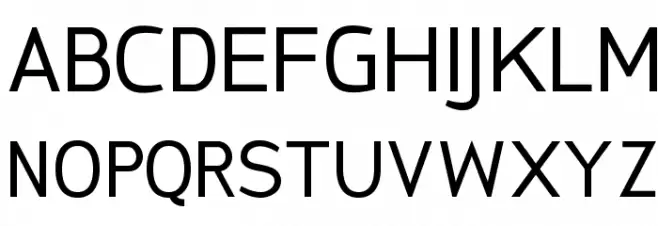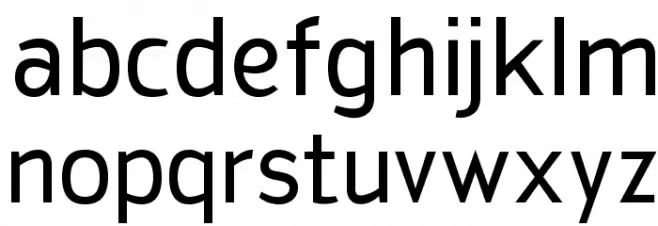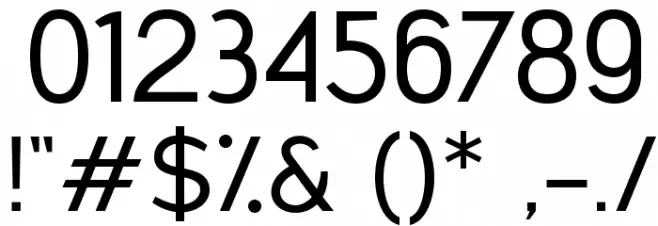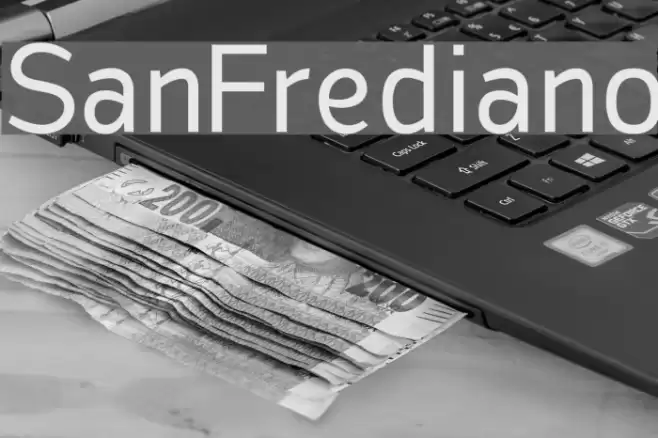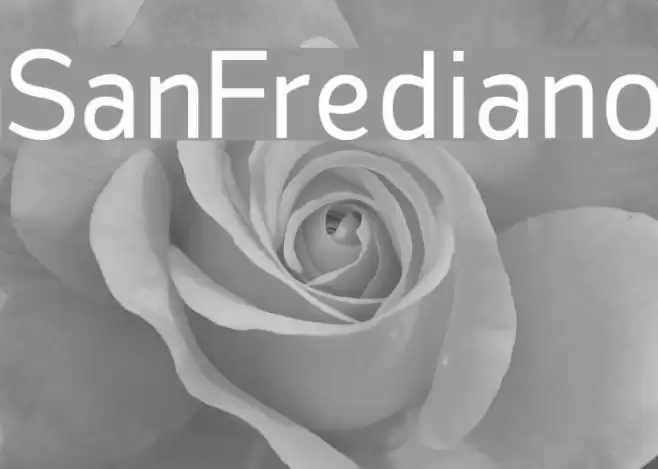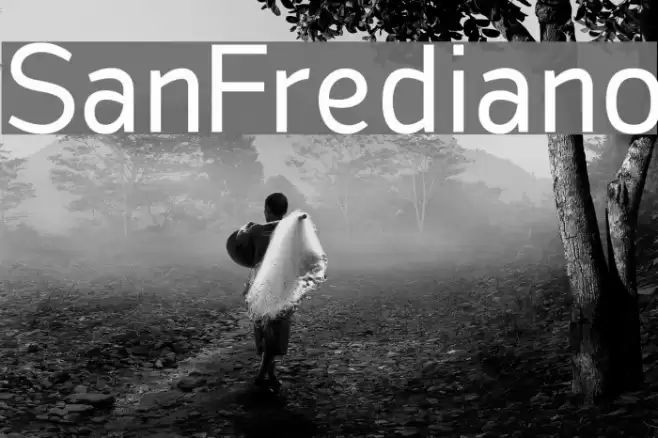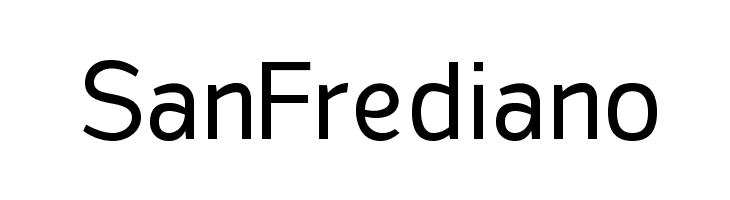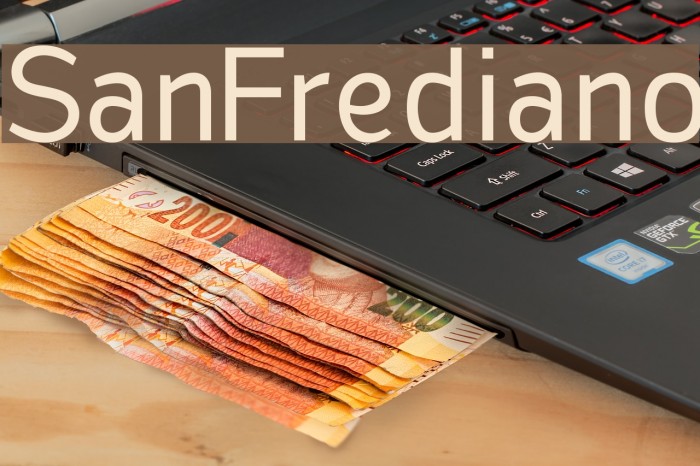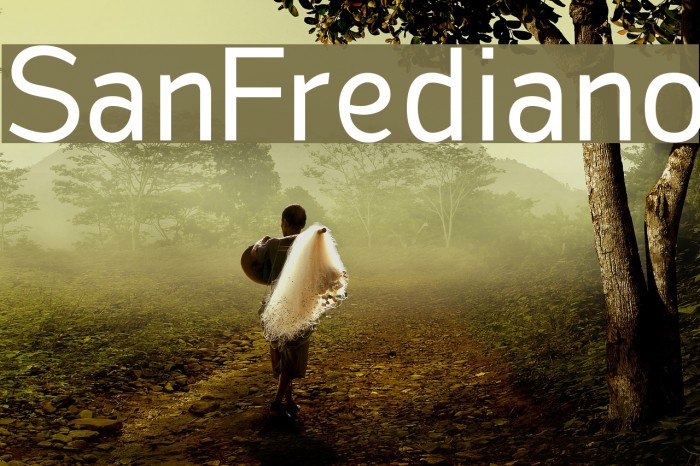
SanFrediano
This font features a clean and modern sans-serif design, characterized by its simplicity and readability. The letters are evenly spaced with a consistent stroke width, providing a harmonious and balanced appearance. The uppercase letters are bold and impactful, while the lowercase letters maintain a smooth and approachable look. The numerals are clear and distinct, making them easy to read. Special characters are well-integrated, maintaining the overall aesthetic of the font. Its versatility makes it suitable for a wide range of applications, from digital to print media.
A modern, clean sans-serif font with balanced spacing and consistent stroke width.